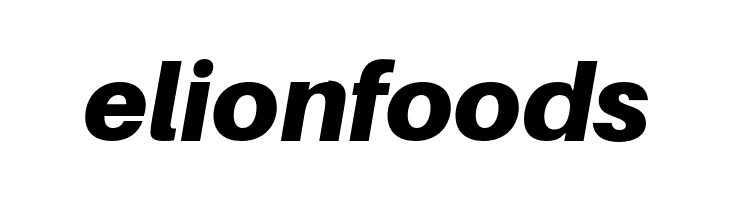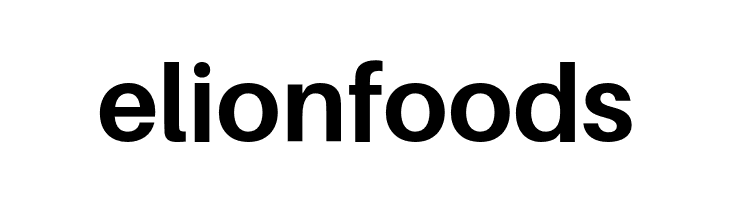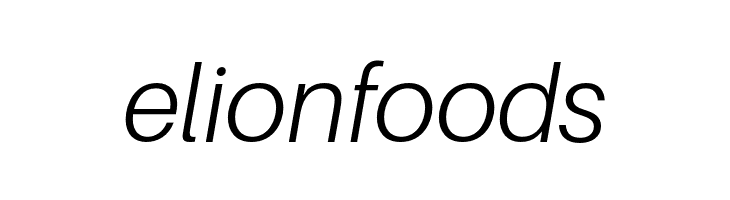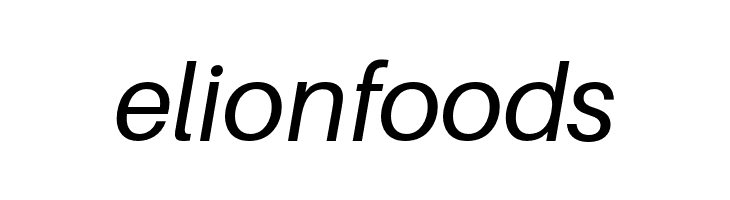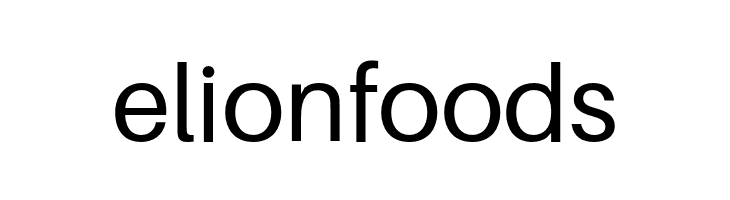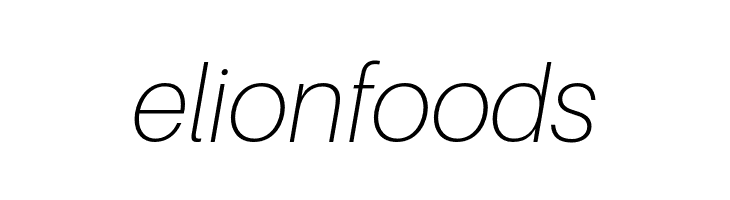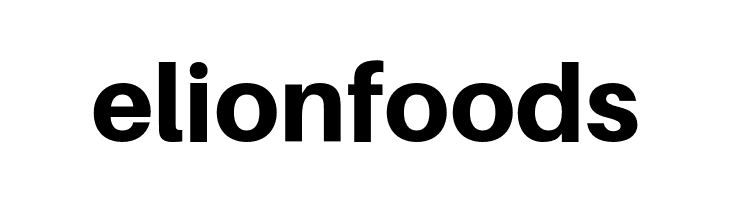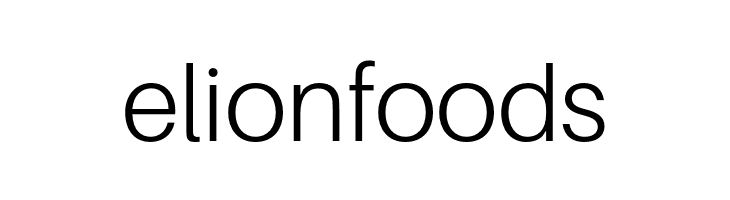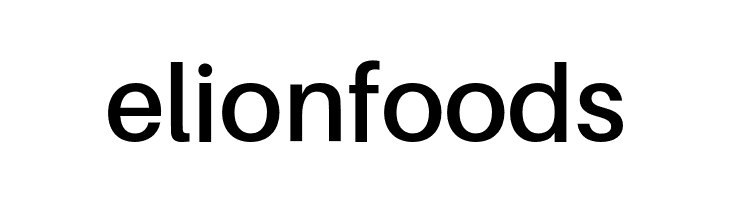
A bold, modern sans-serif font with excellent legibility and versatility.
A sleek, modern, and elegant italic typeface with a light weight.
A sleek, modern italic font with clean lines and uniform stroke width.
A modern, bold, and italicized typeface with consistent stroke thickness.
A modern, geometric sans-serif font with clean lines and excellent readability.
A sleek, modern, and italicized thin font with elegant strokes.
A bold, modern sans-serif font with a clean and geometric design.
A clean, modern sans-serif font with uniform stroke widths and excellent readability.
A clean, modern sans-serif font with a semi-bold weight and balanced proportions.